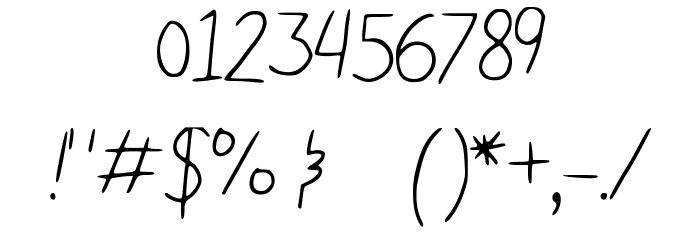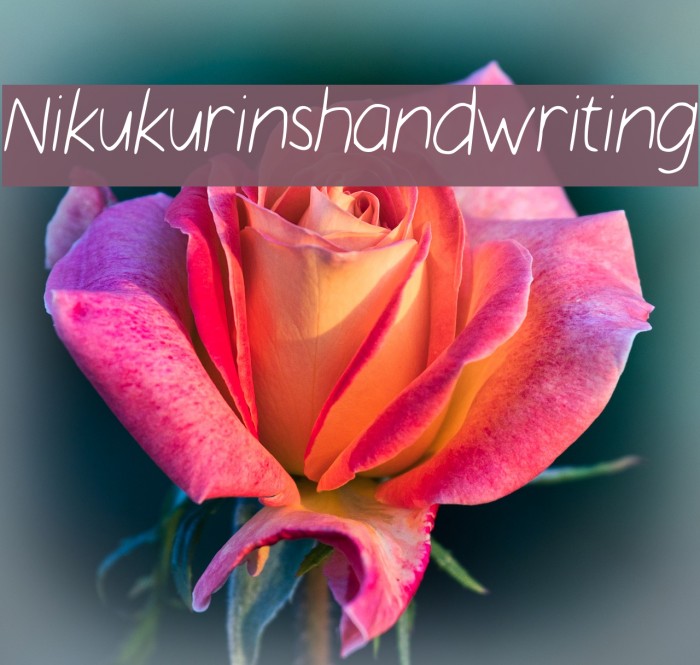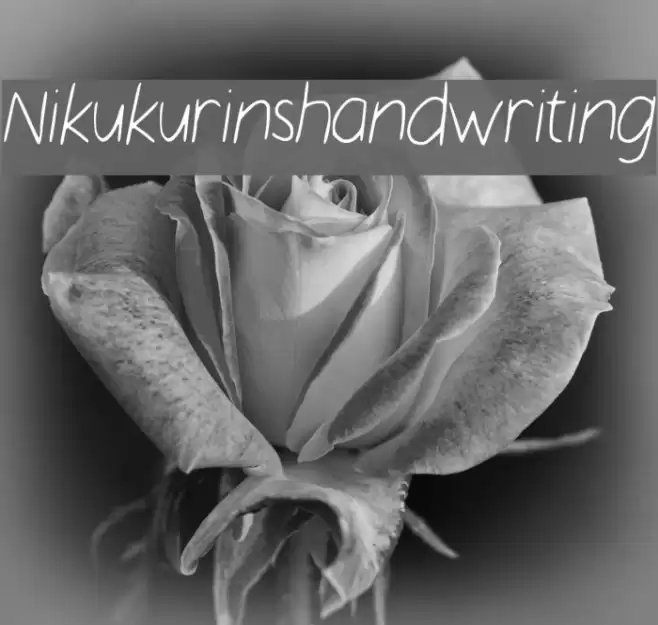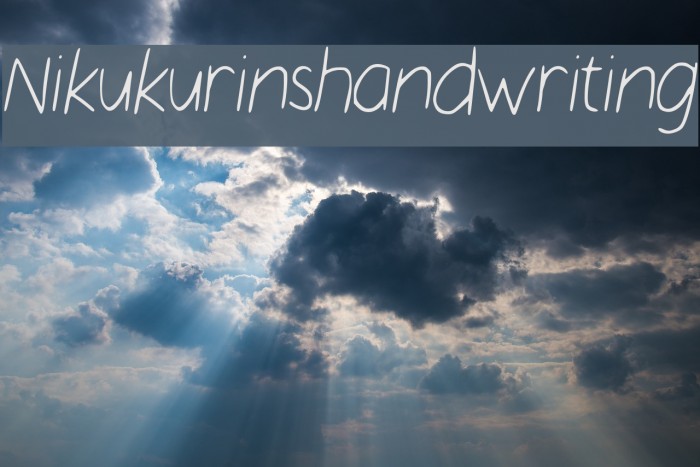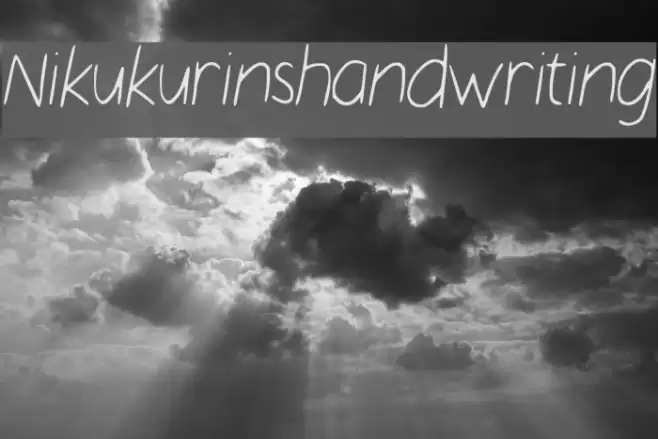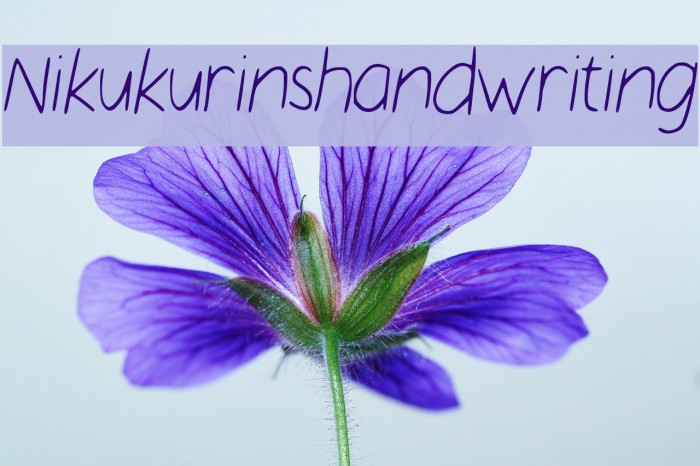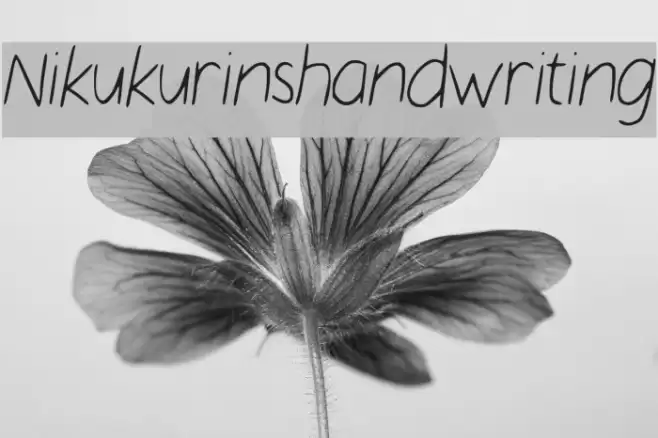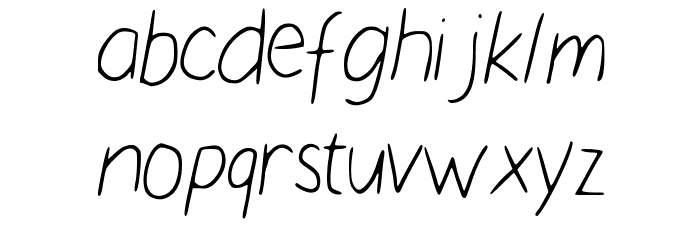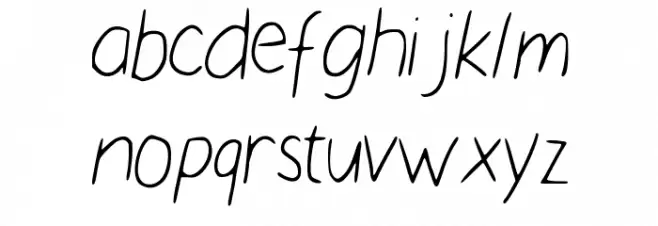
Nikukurin_s_handwriting Font
Nikukurin_s_handwriting Description
This font features a casual, handwritten style with a playful and informal appearance. The letters are slightly slanted, giving a dynamic and lively feel. The strokes are smooth and consistent, with a medium thickness that maintains readability while adding a personal touch. The characters are well-spaced, allowing for clear legibility. The numbers and special characters follow the same handwritten aesthetic, ensuring a cohesive look across all text elements.
| Overall Style | Casual |
| Use Case | Headlines, Informal text, Creative projects |
| Proposed Projects | Ideal for personal notes, invitations, greeting cards, and creative projects that require a personal touch. |